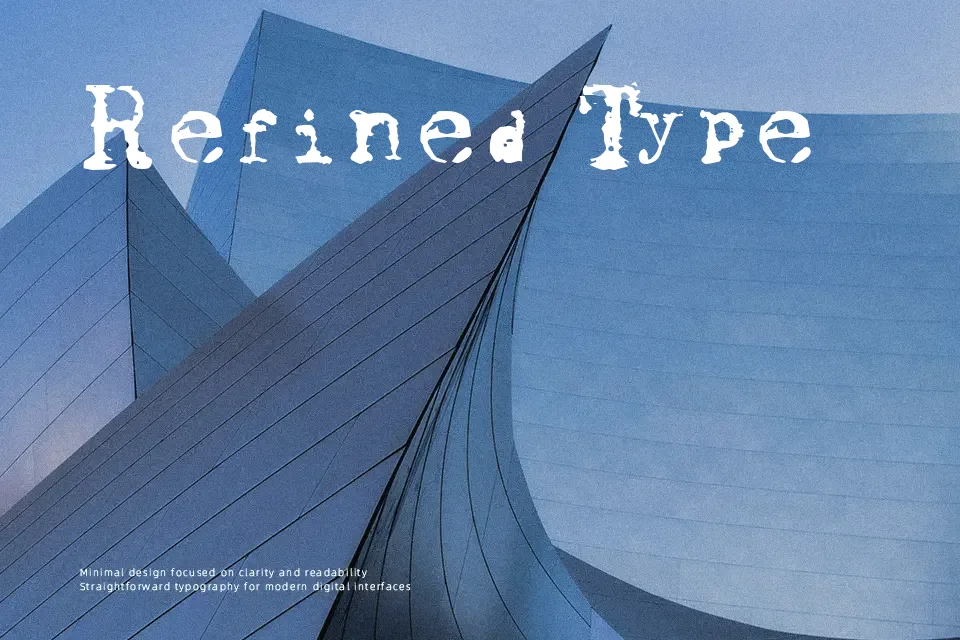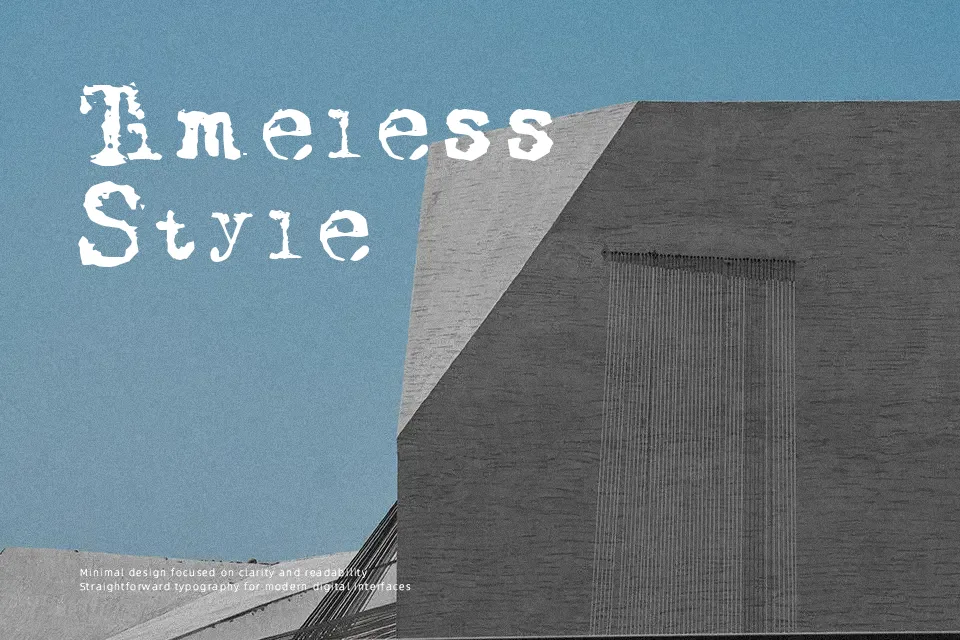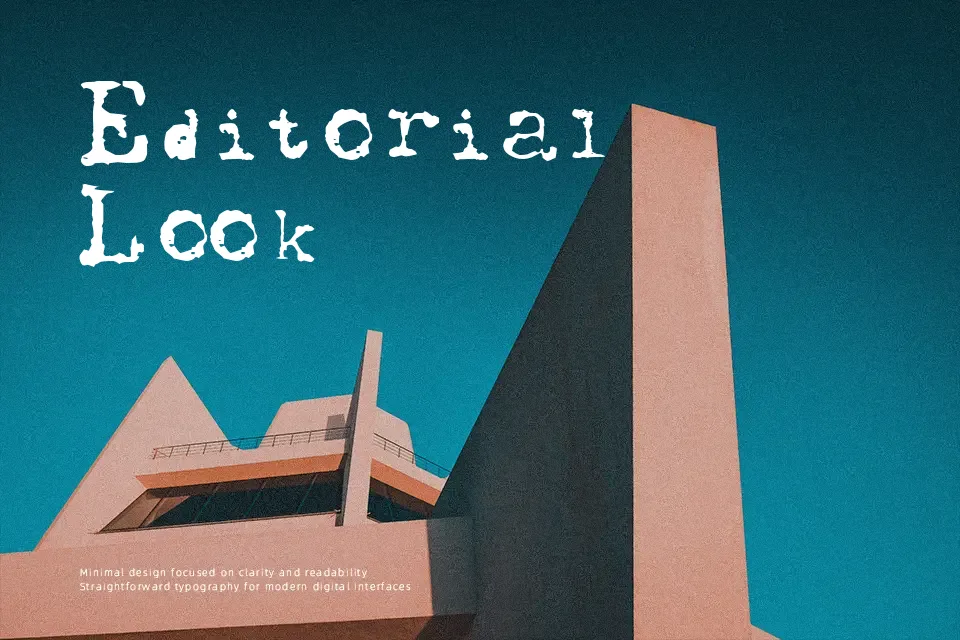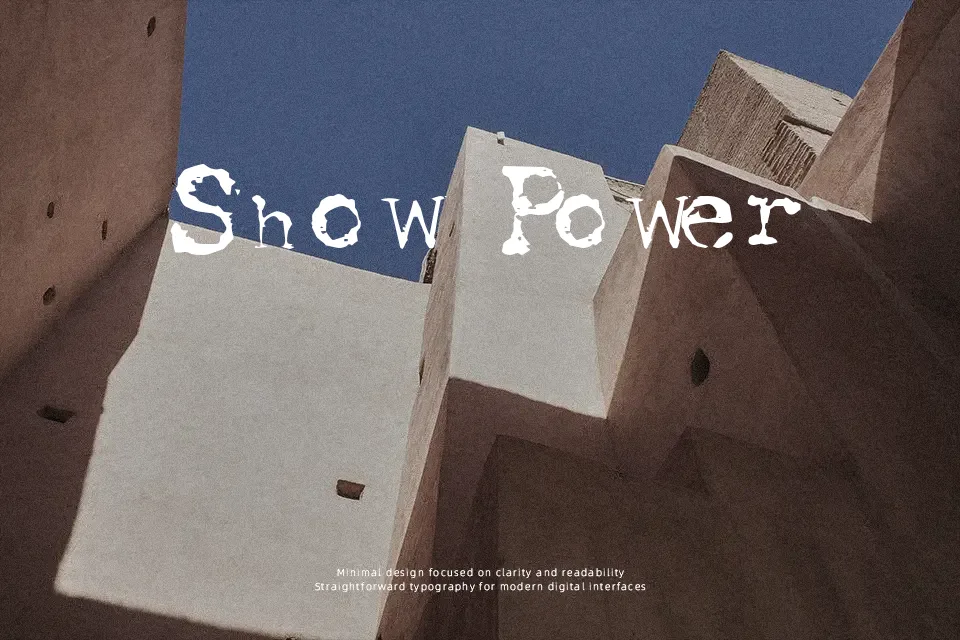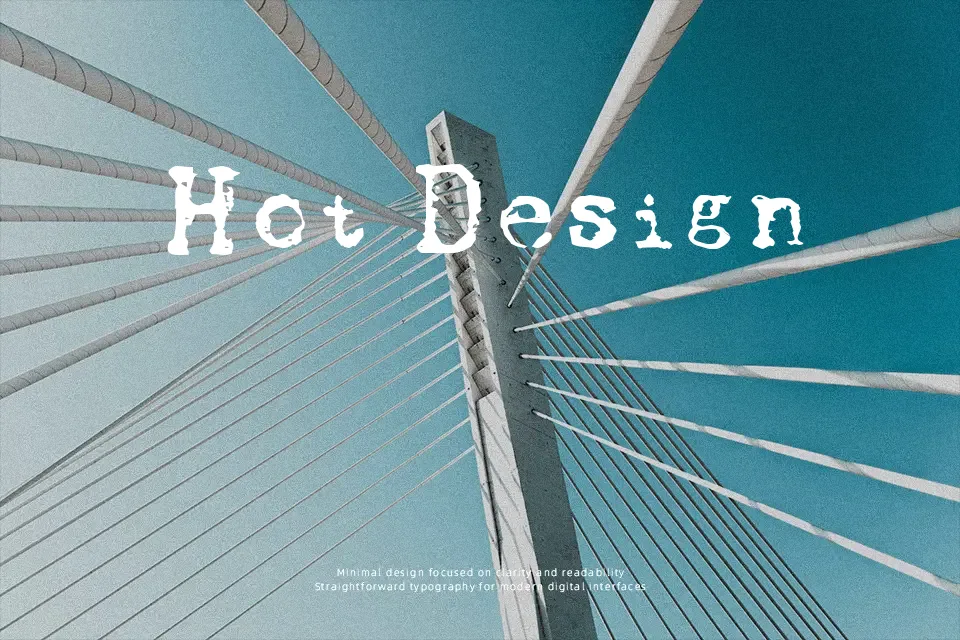
UWJack8 Font
Designed by William C. Pelon
The UWJack8 Font establishes an authentic vintage typewriter aesthetic through rigid vertical stems, blunt horizontal serifs, and strict monospaced glyph metrics. Each character exhibits uniform stroke weights with minimal modulation, evoking the mechanical strike of an analog typing unit. Wide, open counters and uniform letter intervals keep words organized across short sequences, while distinct punctuation marks reinforce the raw, utilitarian look. Because the equal-width structure produces noticeable gaps around narrower letters like lowercase l and i, the letterforms maintain stronger visual rhythm in short headlines rather than extensive book typography. This design excels in retro themed signage, creative document headers, and stylized editorial callouts.
vintage editorial layouts
retro document headers
dossier film props
industrial packaging labels
extended book typography
dense mobile UI labels
high-volume body text
fine legal documentation
Perfect for editorial, headline, and packaging, with a classic and display style.